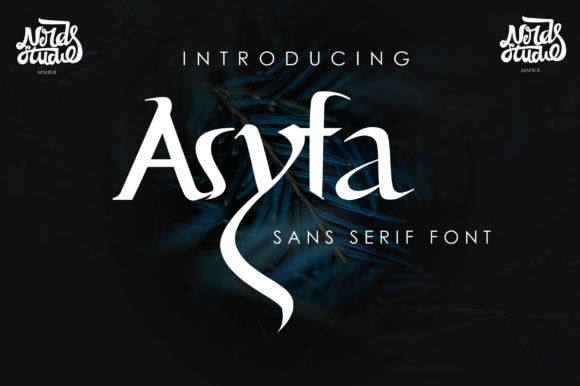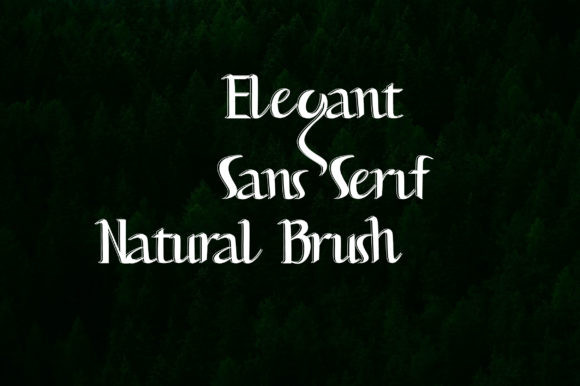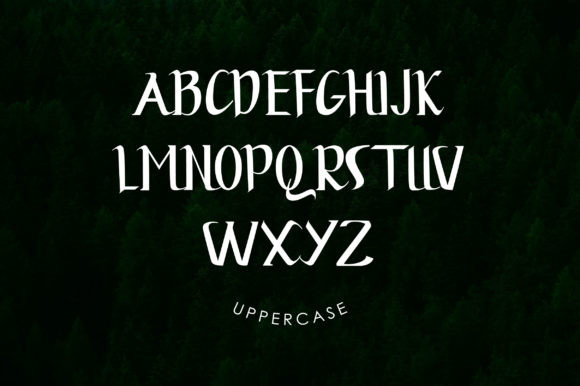
Asypa Font
Asypa is a modern display font that is readable, bold and stylish. It is defined by smooth curves and is perfect for fashion branding or editorial designs. Add it confidently to your projects, and you won’t be disappointed.